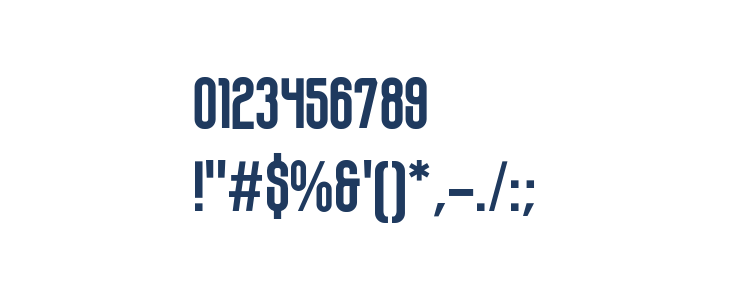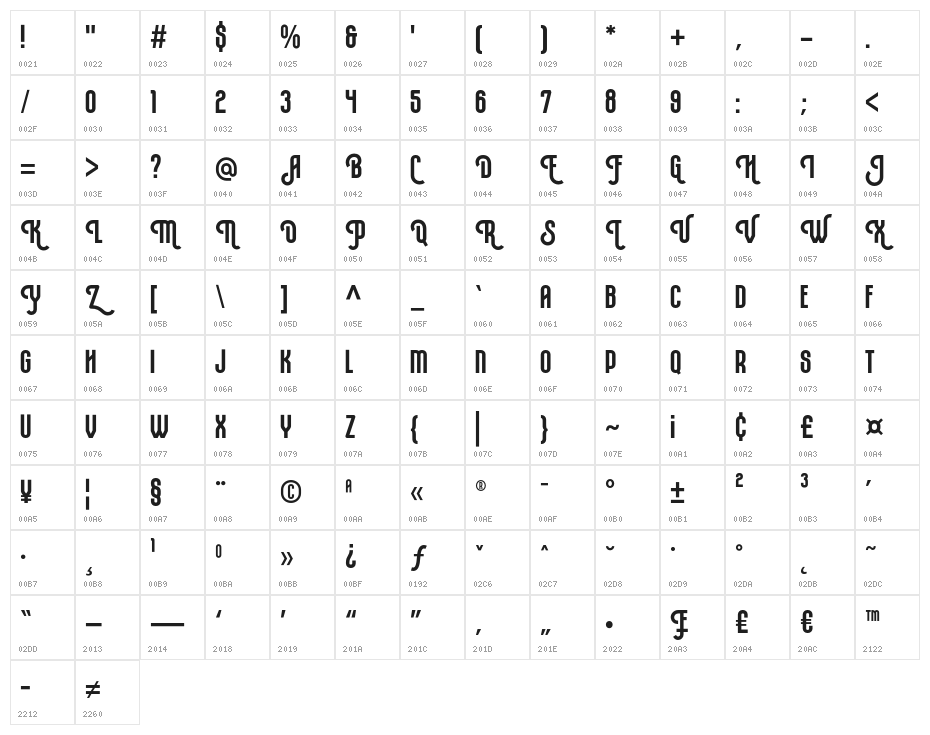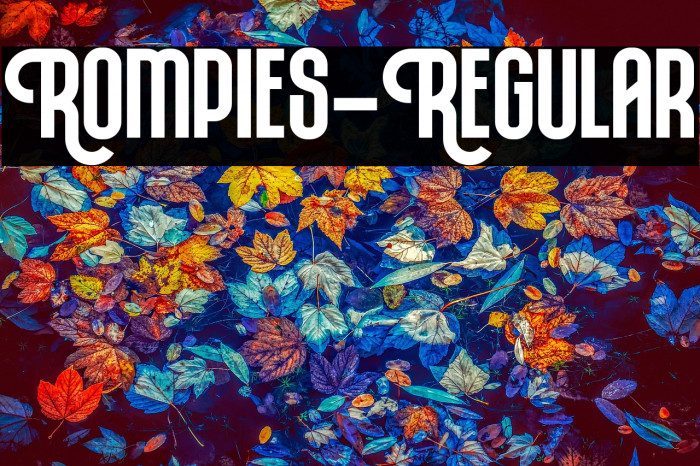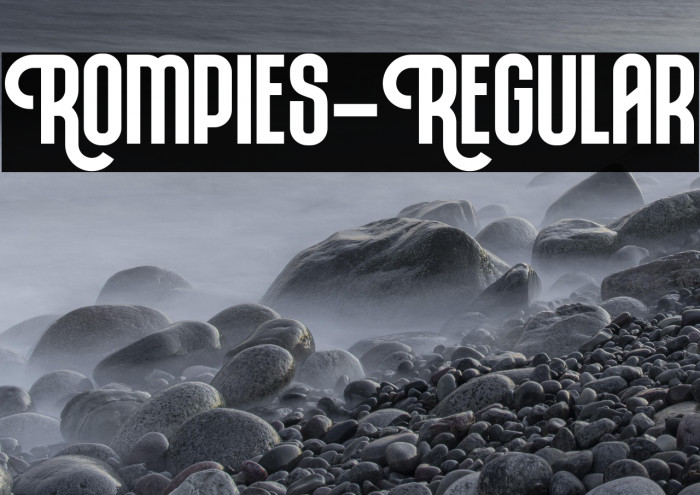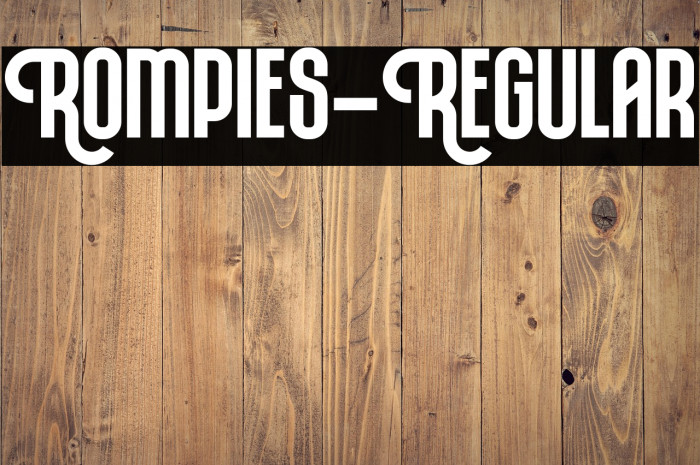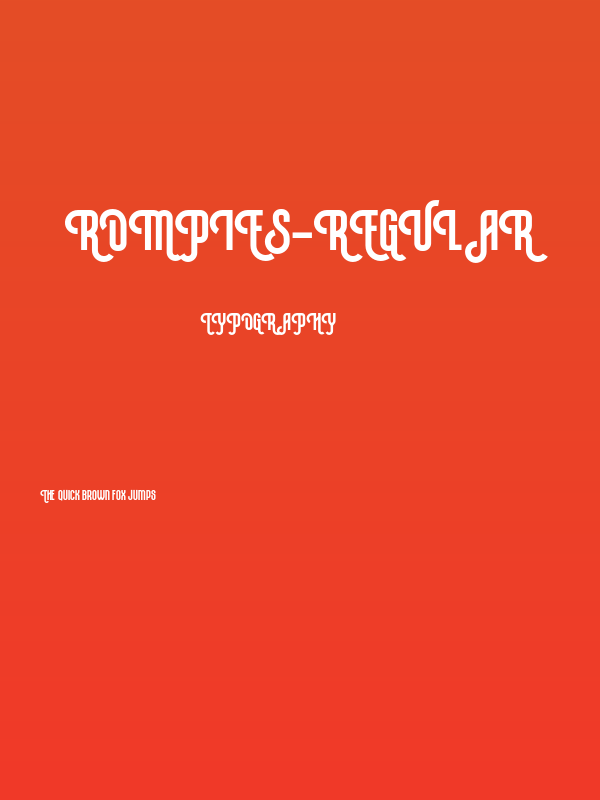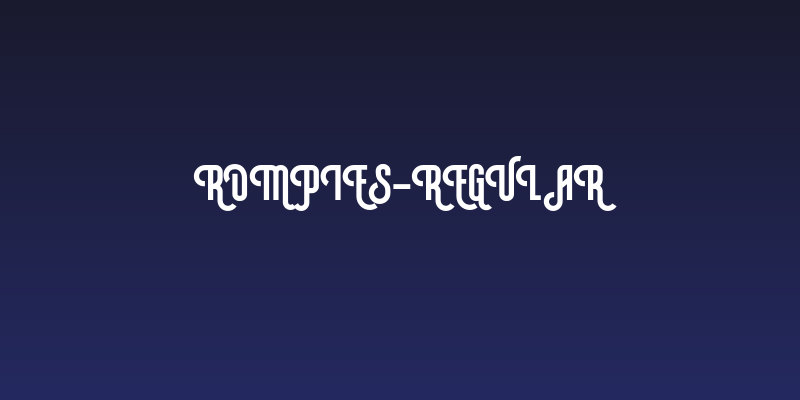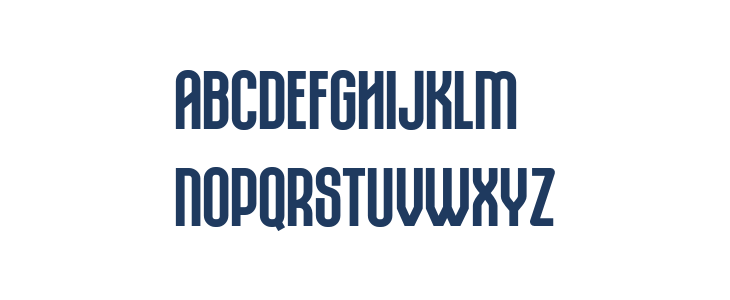
Rompies-Regular Font
Rompies-Regular Description
This font features a bold and dynamic style with a unique blend of decorative and modern elements. The uppercase letters have a distinctive flair, with curved strokes that add a sense of movement and elegance. The lowercase letters maintain a consistent weight, providing a cohesive look across different text sizes. The numerals are clear and legible, making them suitable for various applications. Special characters are well-designed, complementing the overall aesthetic. This font is versatile, offering a striking appearance that can enhance creative projects.
| Proposed Projects | Ideal for branding, posters, headlines, and creative designs that require a bold statement. |